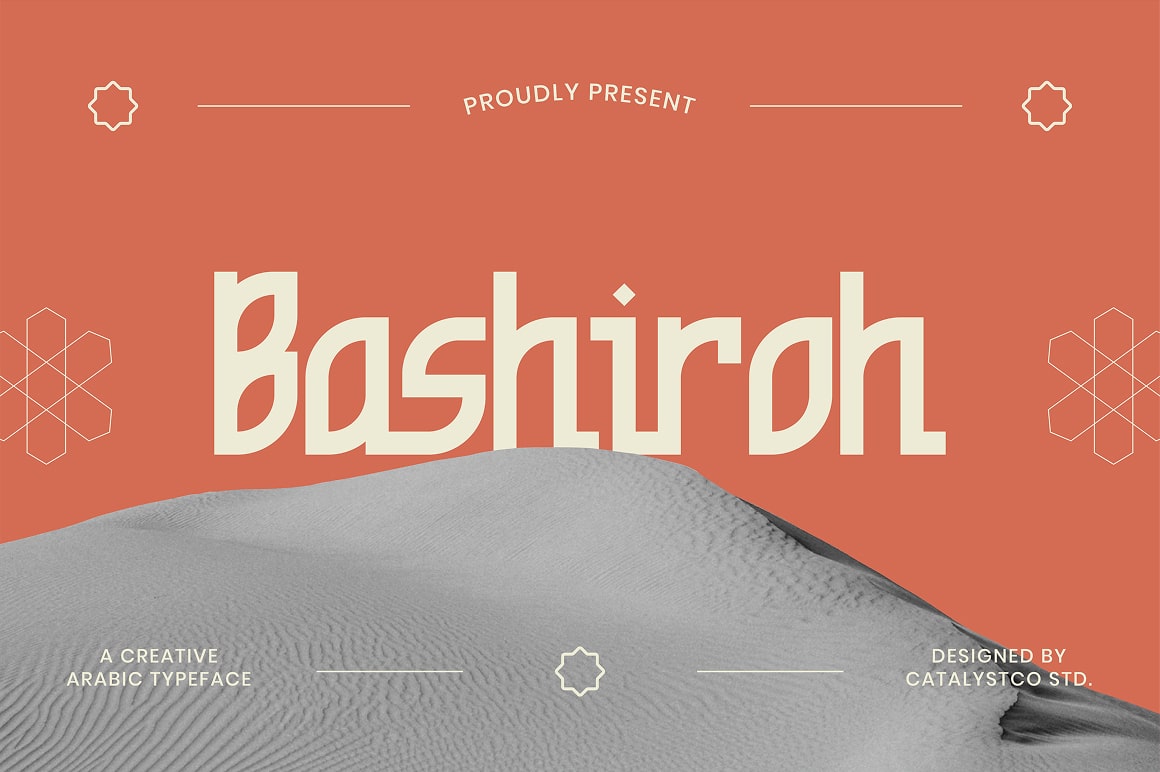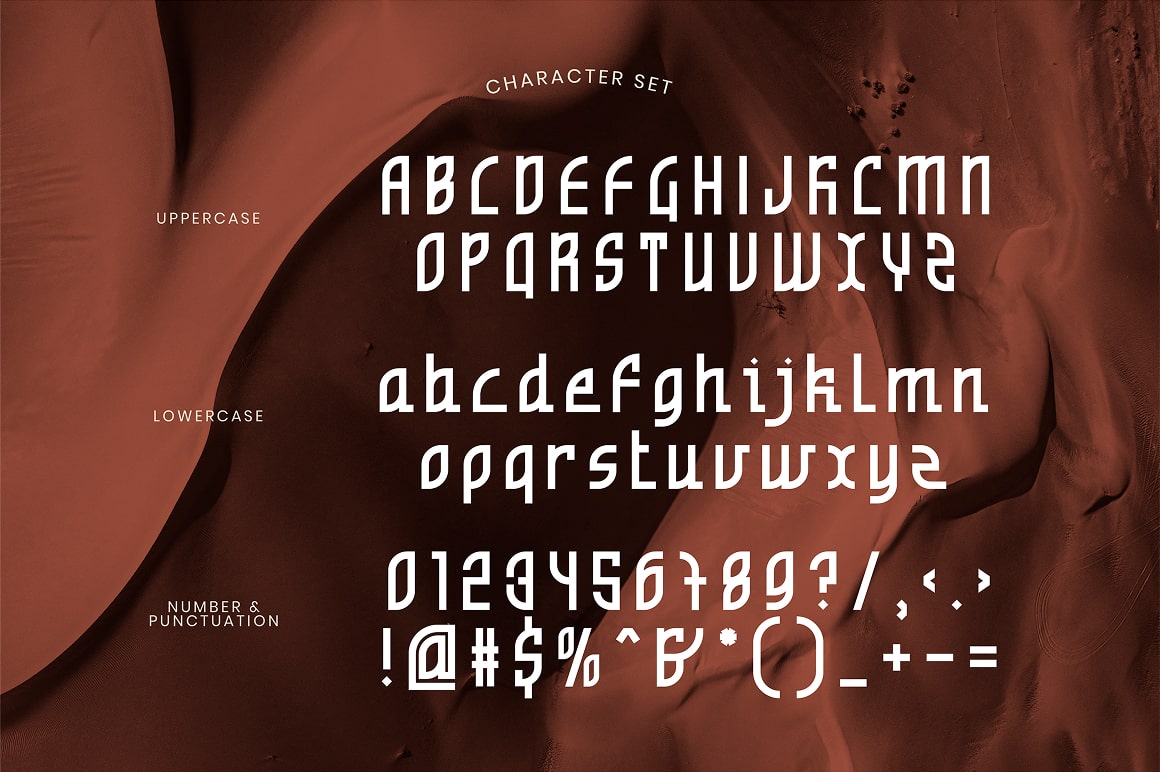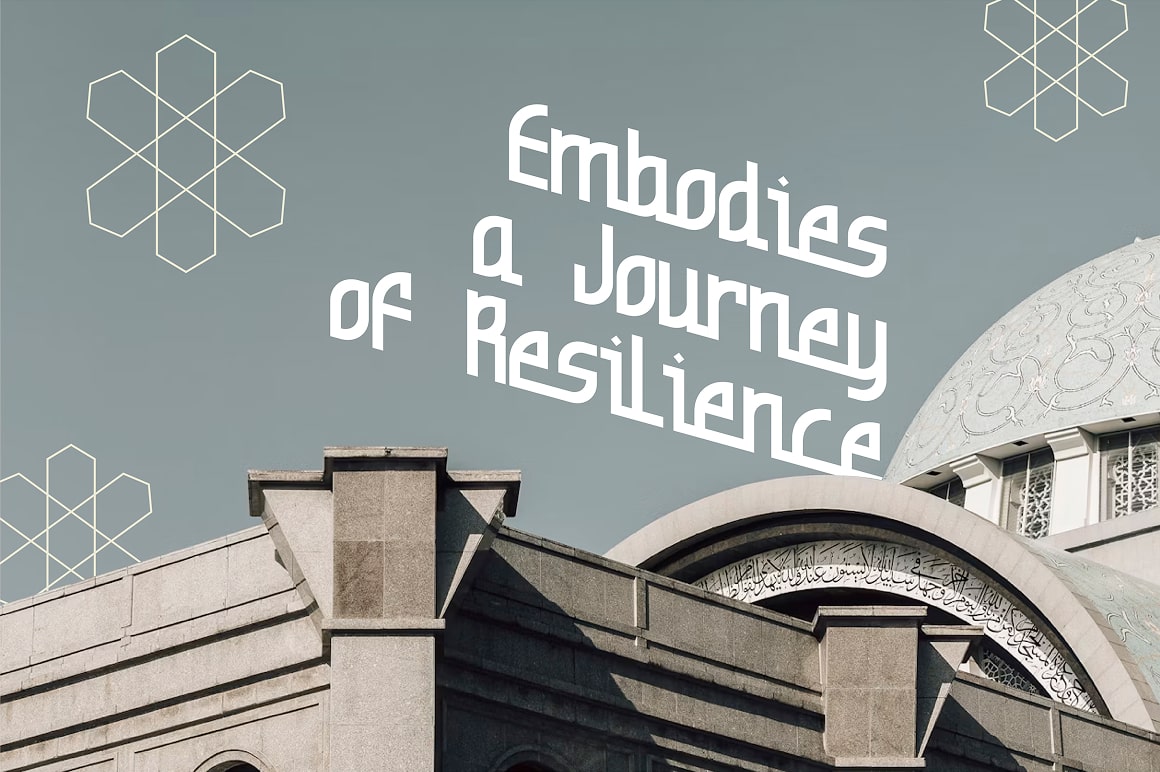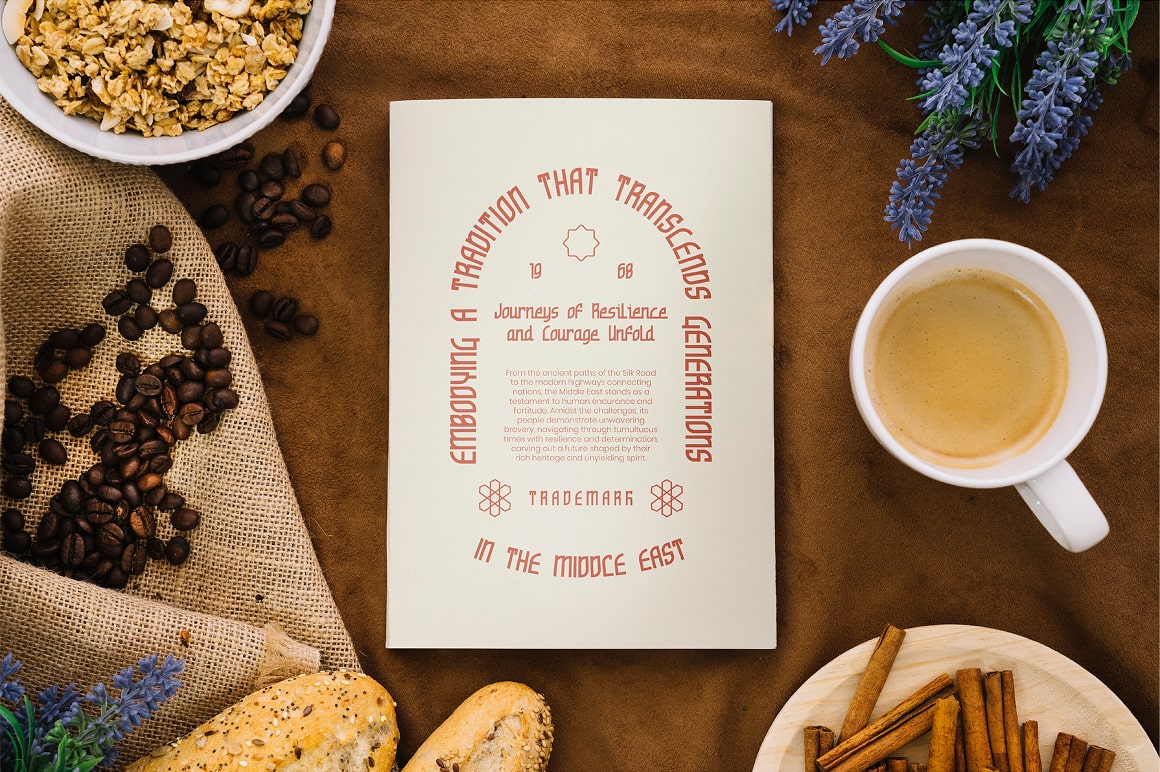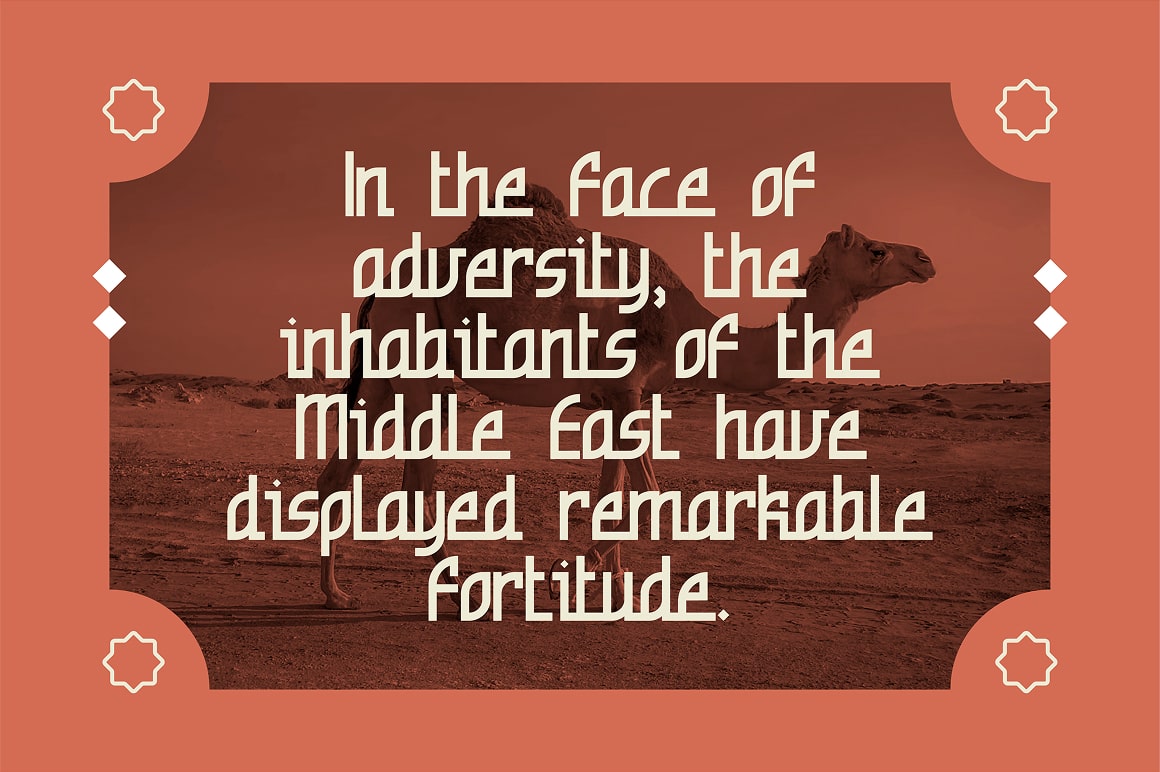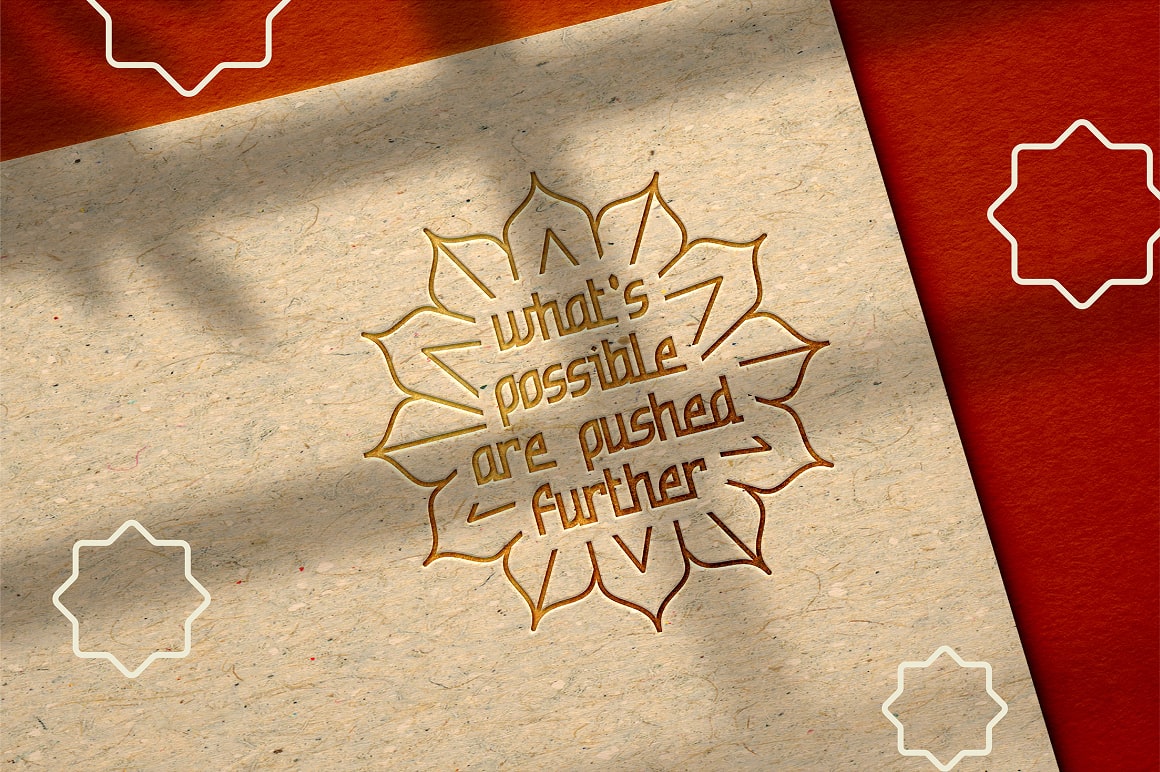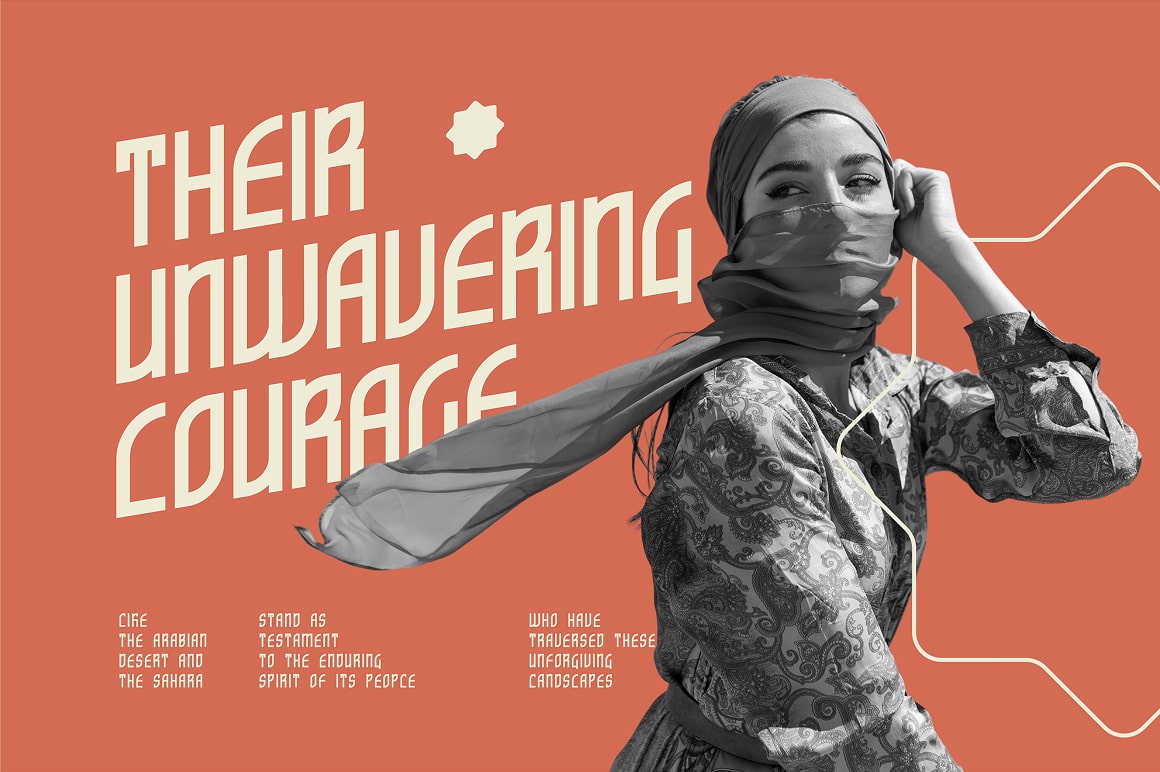
Bashiroh Arabic Typeface
Bashiroh Arabic Typeface typeface excellent used for the manufacture quote text, logotype, header magazine, and many more.
• Uppercase & Lowercase
• Ligatures & Alternate
• Numeral & Punctuations